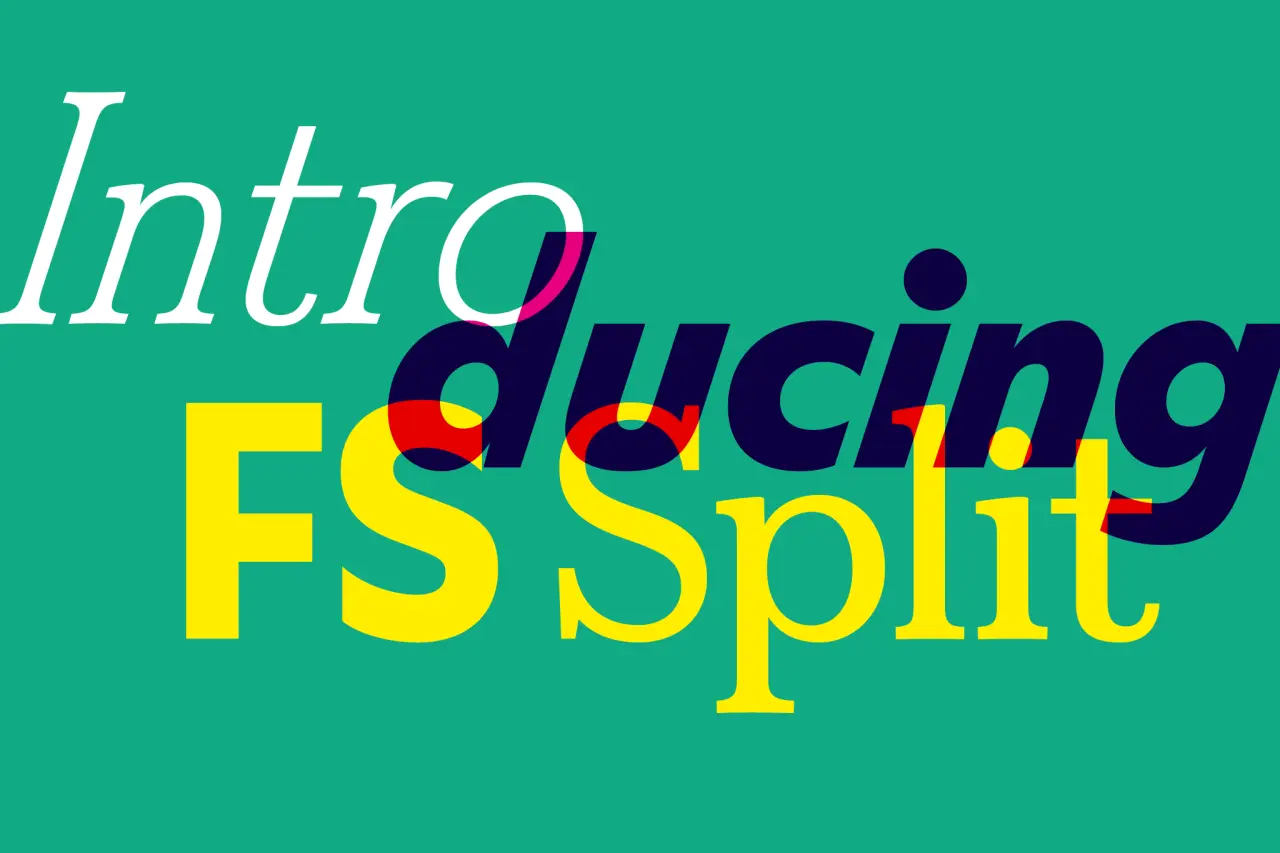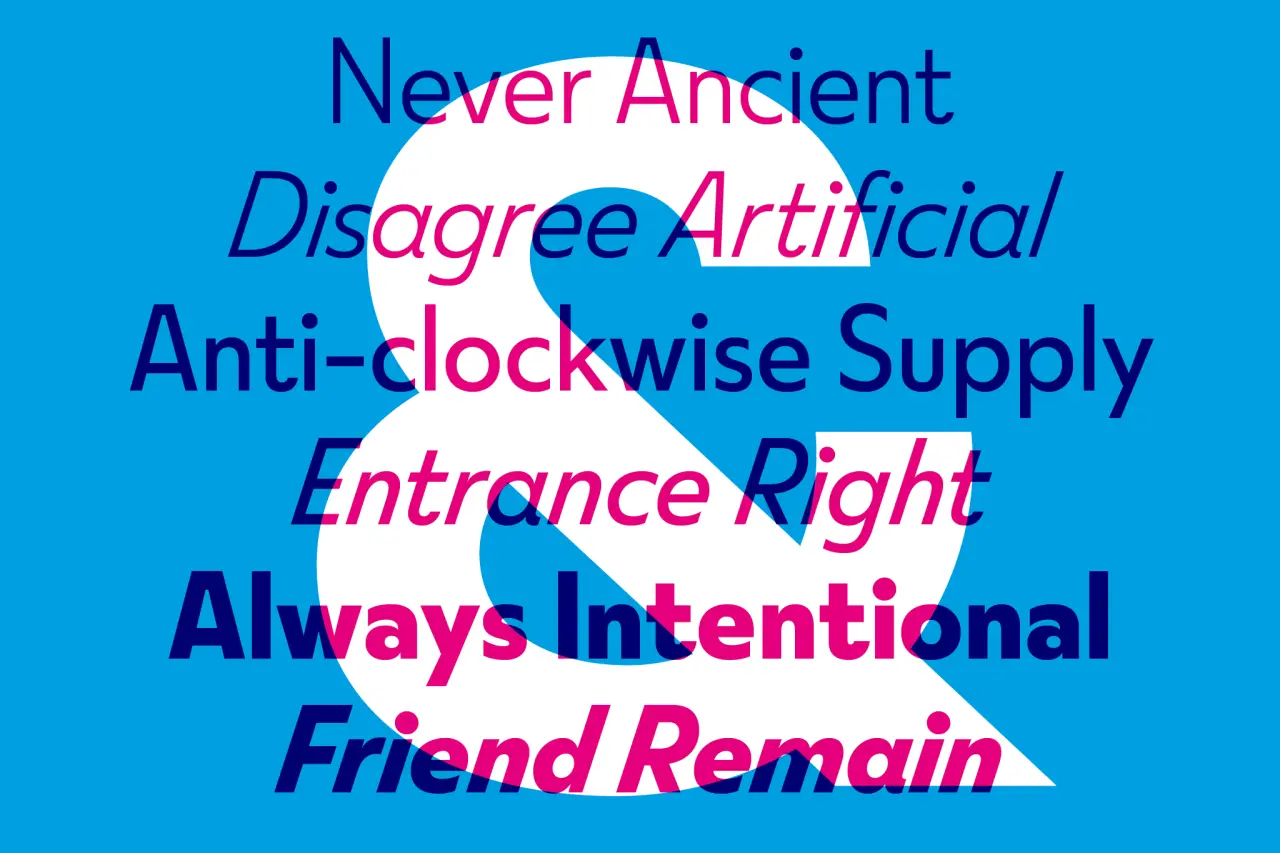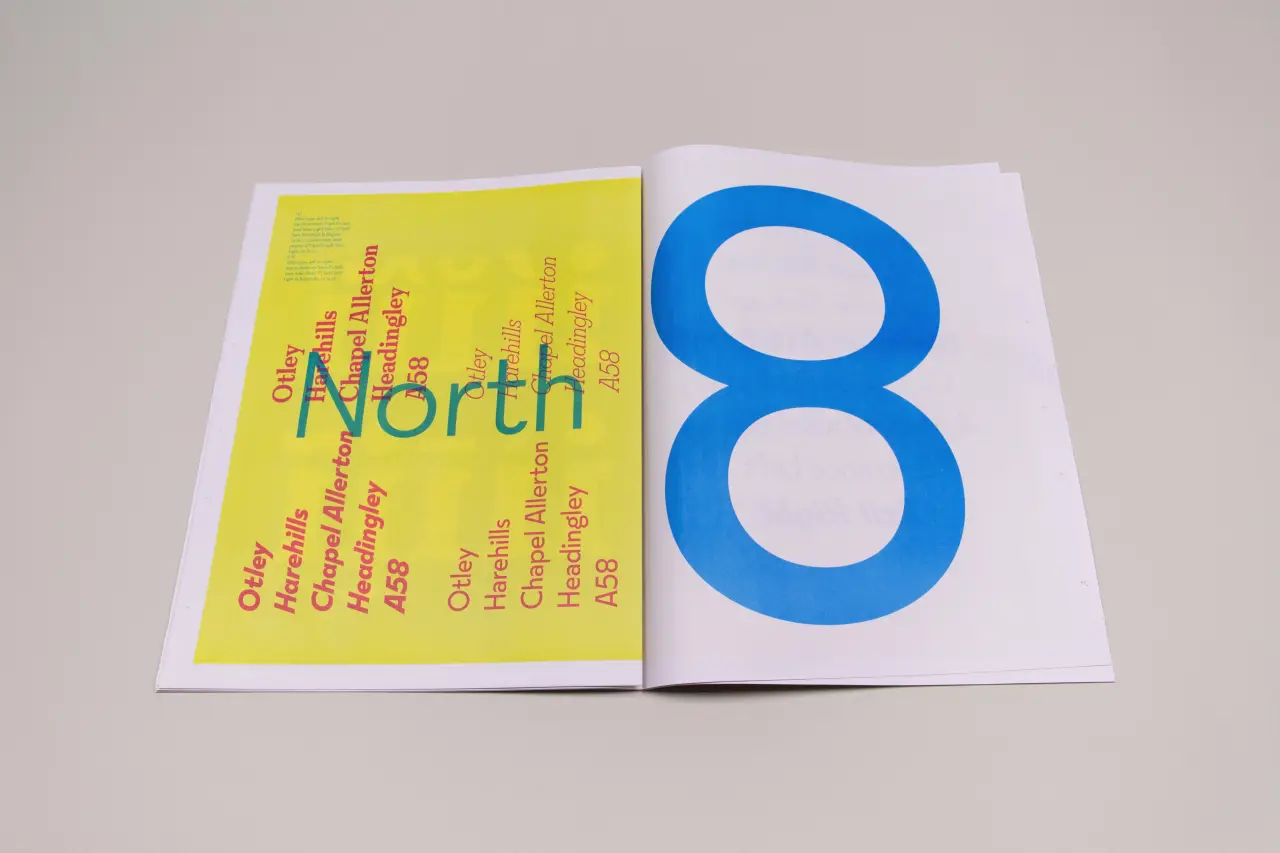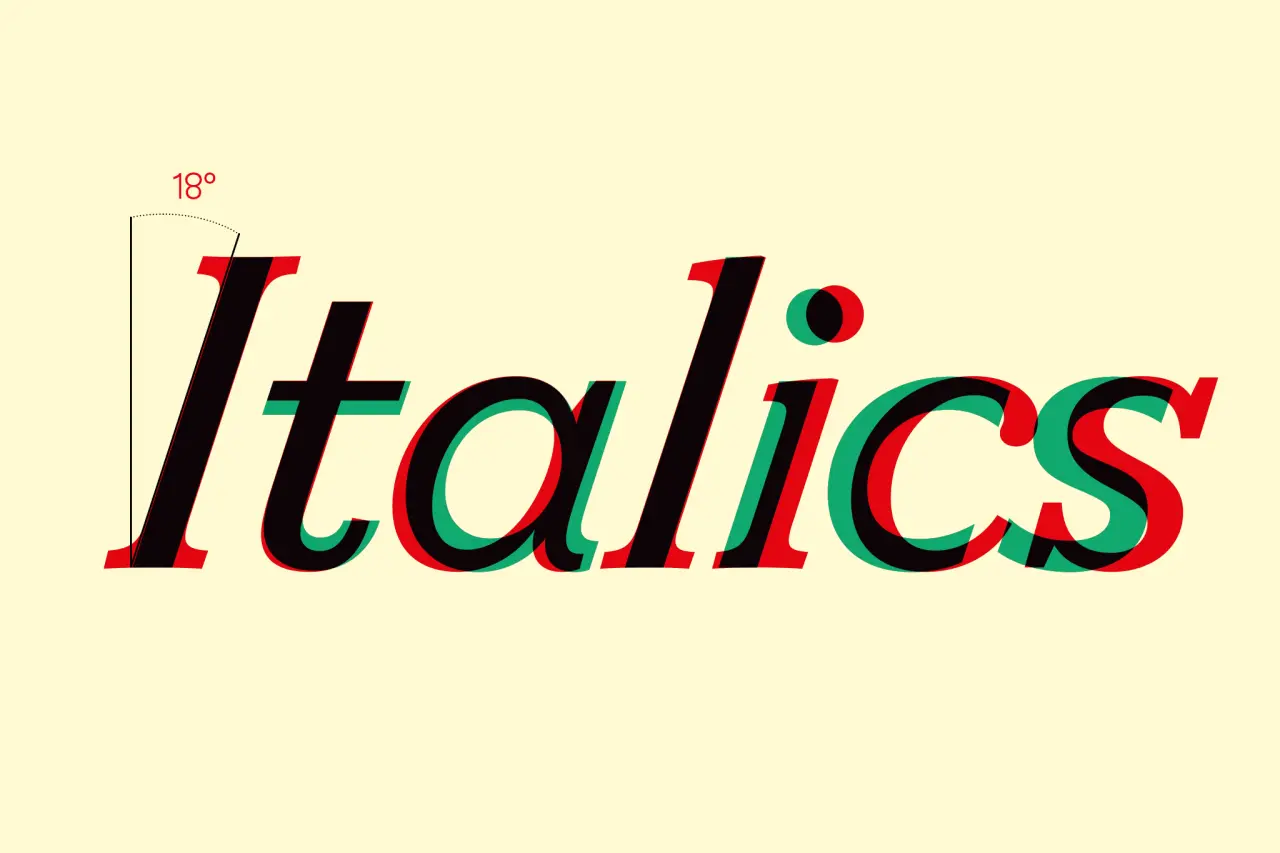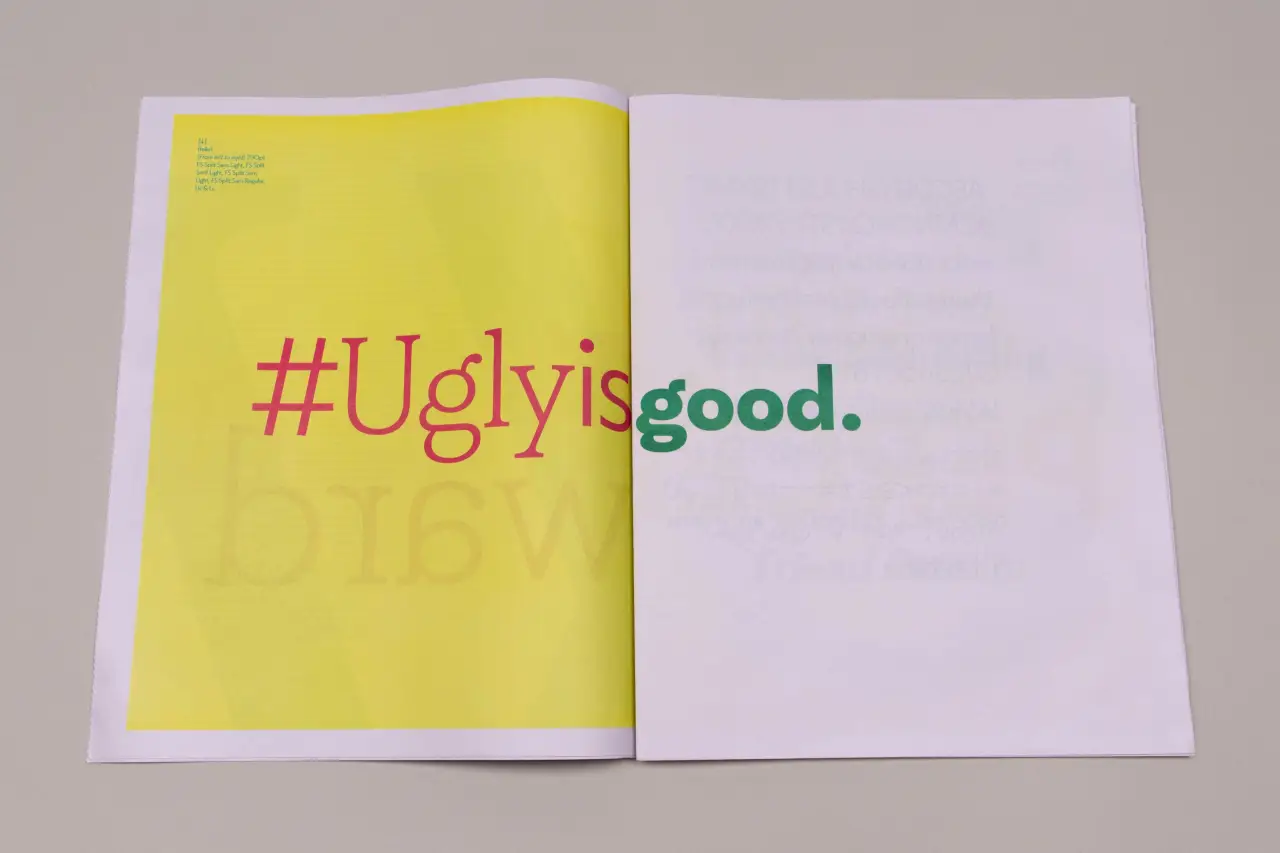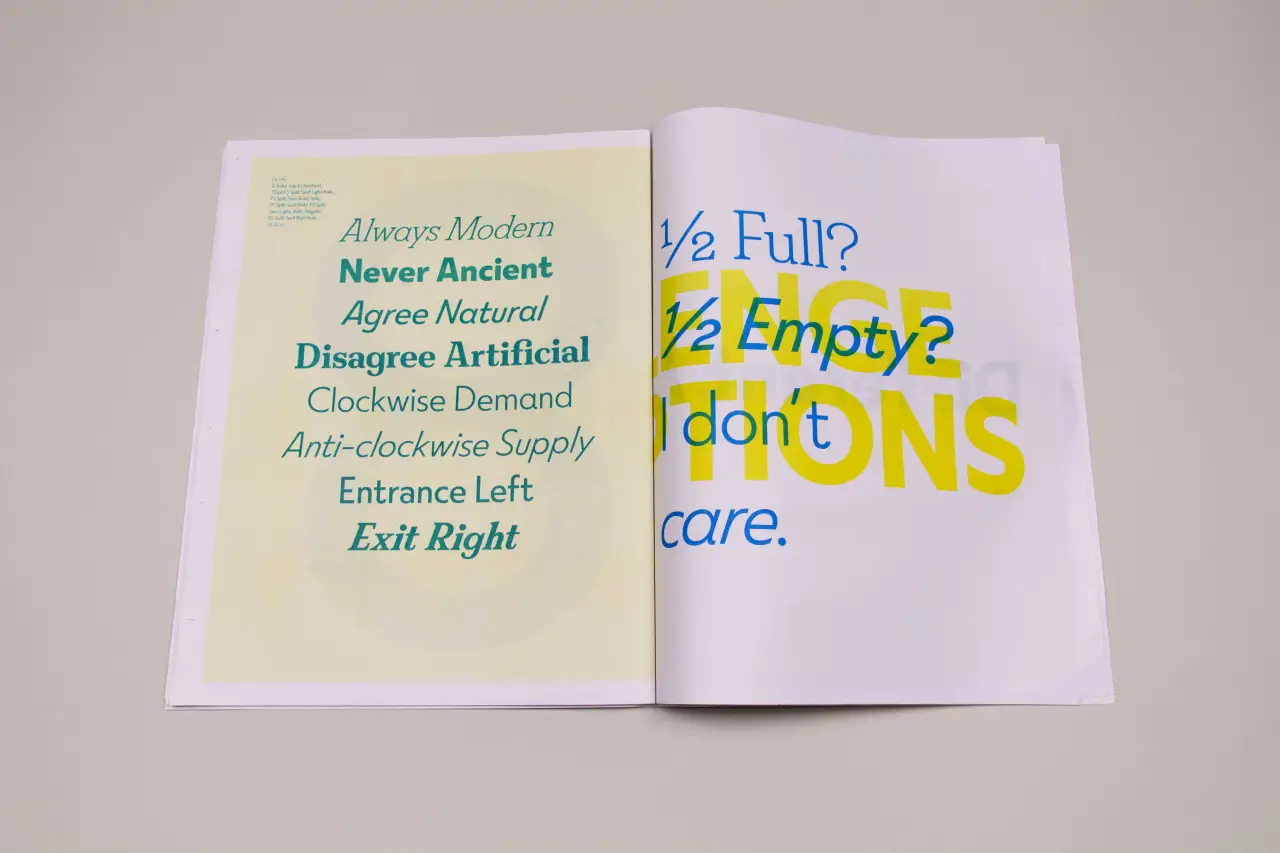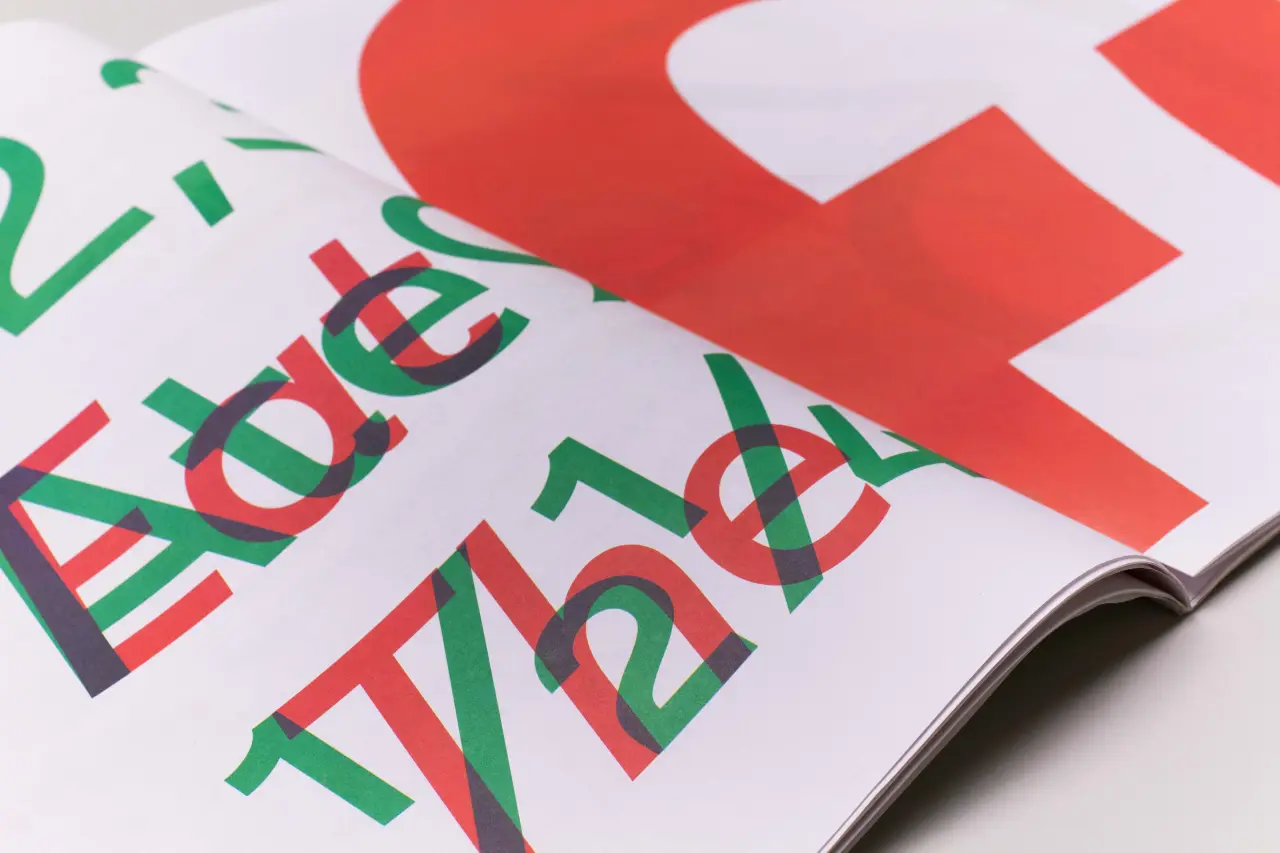
Fontsmith launch FS Split: a new experimental typeface with specimen designed by Studio.Build
Fontsmith has today launched FS Split Sans and FS Split Serif – two "ugly yet beautiful" typefaces for editorial projects, designed by Fernando Mello and Jason Smith.
Created to complement and contrast one another, each with their own personalities, the idea was to create something different, less "perfect" and "fine-tuned", which would stand out from other digital, geometric typefaces.
Fontsmith Founder Jason Smith said: "From the outset, this typeface duo was intended to be a bit odd in proportions and a bit 'wrong' in traditional type design terms. I wanted to push the design oddities and balance the quirks with the quality of the type."
FS Split Sans and Serif both have eclectic proportions, where round characters are wide but straight ones narrow; long descenders and ascenders, and a cap-height that aligns with the latter; dramatic dots on the 'i' and 'j'; oversized top counters on the 'B' and '3'; and extreme italics at an 18-degree forward-slant angle.
To launch the new typefaces, Fontsmith appointed Leeds agency Studio.Build to create a 48pp newspaper specimen-based around the idea of graphic collisions.
Michael C Place, creative director and founder of Studio.Build said: "We created this idea of graphic collisions, a kind of split personality-type idea. Something super graphic, not pretty but with lots of attitude and energy."
Michael adds: "By designing a tabloid newspaper, we were able to show a series of intentional clashes – there are wonderful moments where the spreads collide together creating tension, a nod to the idiosyncratic nature of the font itself. Looking disparate and archaic when reading like a traditional newspaper, the specimen opens out to single spreads to match the idea of a split personality."
FS Split Sans and Serif make a broad type family suitable for everything from magazines and packaging to websites and branding. With the conflicting yet harmonising nature of sans and serif, you can be bold and subtle, eclectic and ordinary, contemporary and classic. Find out more: fontsmith.com.